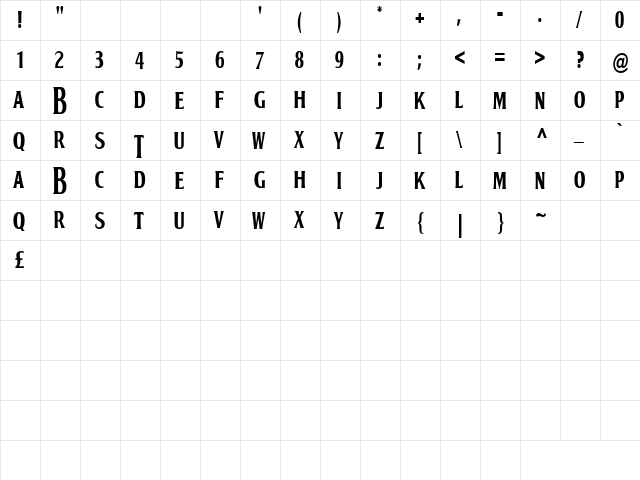
BOOTLE Regular
Design Context for BOOTLE Typeface
BOOTLE takes a measured approach to typography — its balanced proportions and neutral character make it a reliable workhorse for both digital and print work.